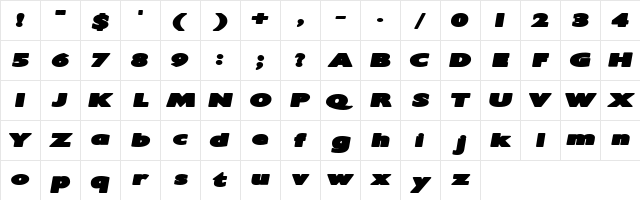
Irtusk Bold Italic
Design Context for Irtusk Typeface
Irtusk is a composed and adaptable typeface that performs quietly and consistently across a wide range of design contexts. The slanted form adds forward momentum and visual energy. Its bold stroke weight gives it real presence on the page.
Pro Tip: Use Irtusk for emphasis, pull quotes, and subheadings where its slanted energy can add rhythm to the layout.